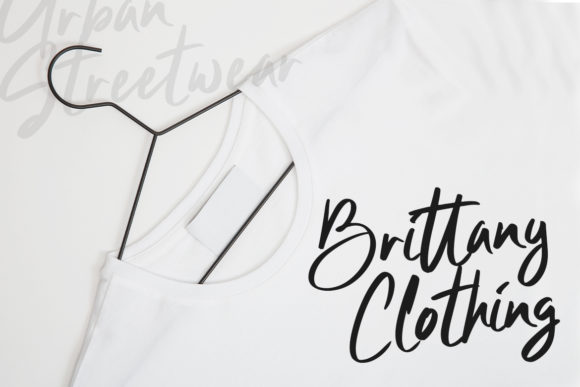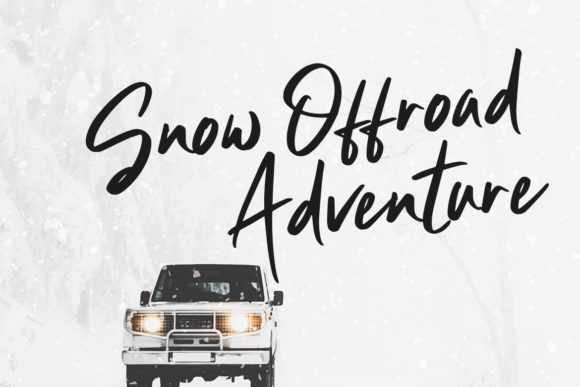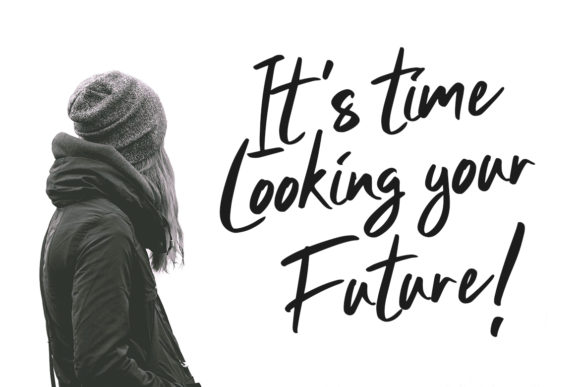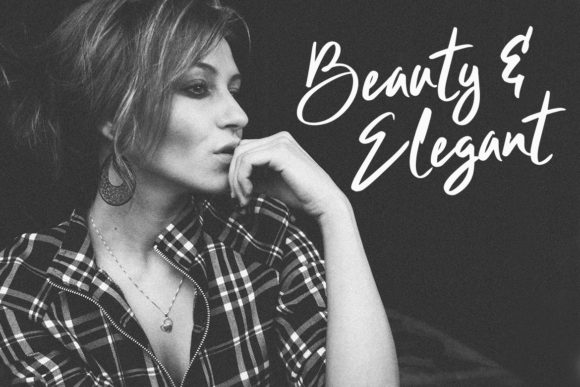
Clattering Font
About Clattering Font
The Clattering is a handmade brush font with a free-flowing and confident bold style between thick and thin curves.